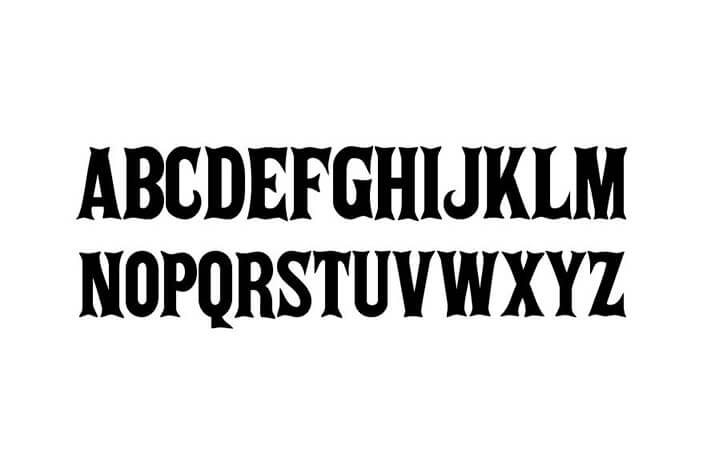
Introducing Backwoods Font! Backwoods is an American brand of cigars that was introduced in 1973.
The product was notable for heavy advertising during the 1970s and 1980s, which became one of the clearest examples of how companies reacted to changing laws and cultural views on public health and smoking culture at the time.
This font has a bold texture and belongs to the serif typeface. And it considers itself the most important typeface ever.
The closest font we can find that matches the letters is Aka Posse which is a fancy western typeface. That was designed and shared by AkaType.
Font Name:Backwoods Font Family
Style:Logo, Serif, Display
Font Designer:AkaType
Thus you can cover the entire design industry with its help. You can create covers, posters, signs, headlines, card printing, fabric printing, mugs, watermarks, Adobe Photoshop, Adobe Illustrator, and more.
This font comes in a single style. This style is famous for its unique packaging with a frayed end, tapered body, and incomplete head.
These great fonts have a great ability to work smoothly for different tasks.